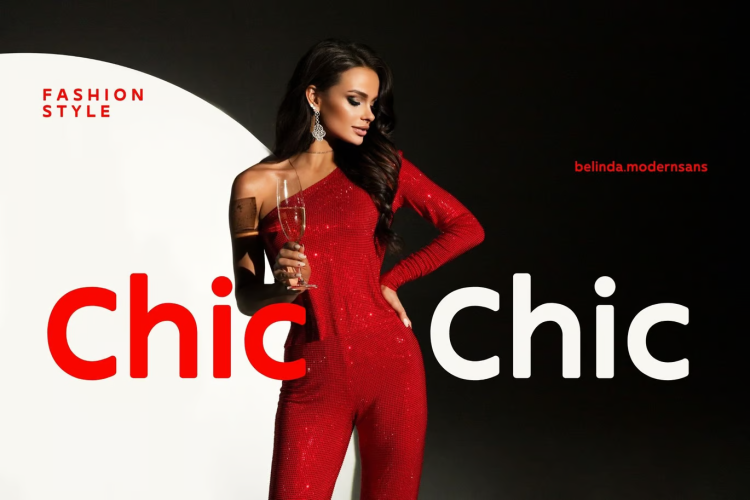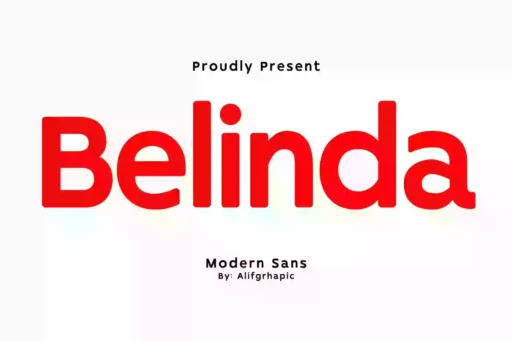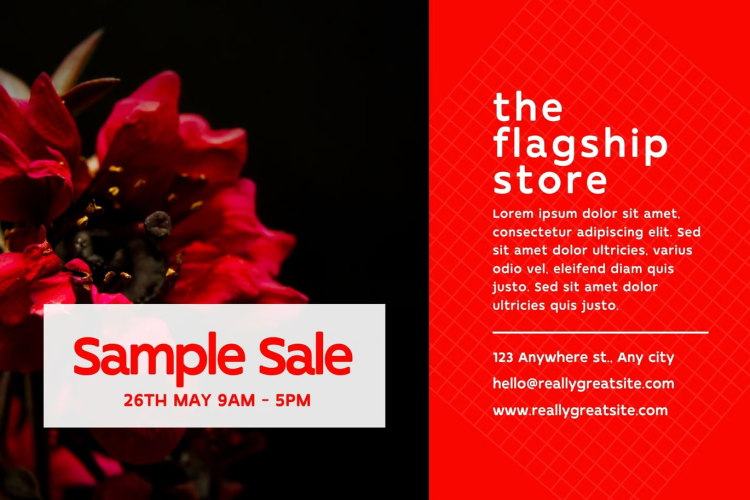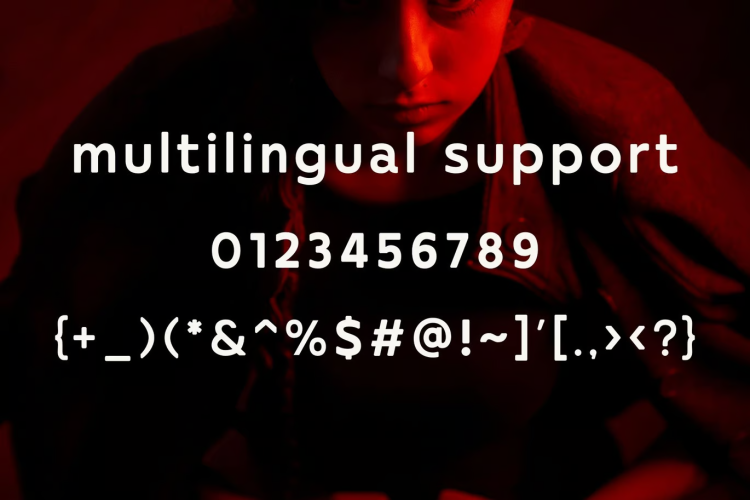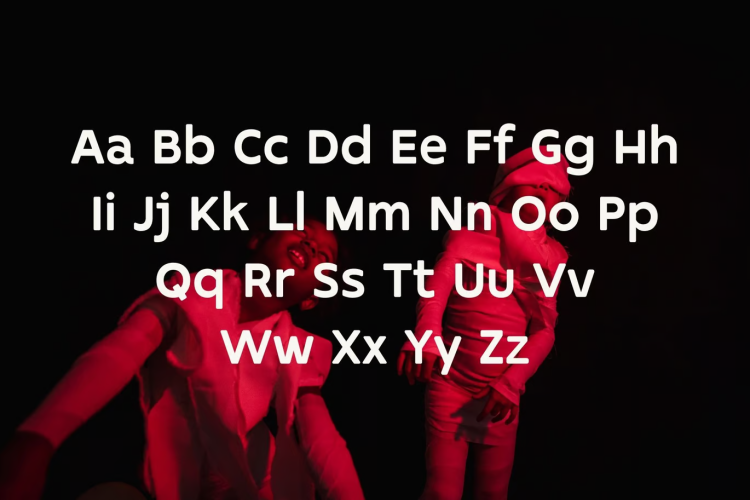
Belinda Font
Belinda is a modern sans serif font family by Alifiagraphic. This font has been designed carefully and each character in this font looks crystal clear, elegant and beautiful. It is intended for use in current writing environments with a touch of class to it, making it ideal for projects that demand a touch of class.
From initial design to the last detail of its creation, it is characterized by its bid to offer the best; the letters are formed to a high level of neatness and orderliness. This focus to detail makes it possible to have a well composed and coherent text for branding, designs, invitations and writing purposes.
Where Belinda Font works best
Belinda Font stays legible at small sizes, which makes it a strong choice for navigation, buttons and dashboards in web design and app interfaces.
Clean sans serifs like Belinda Font are the default language of SaaS, fintech and product branding.
What is Belinda Font good for?